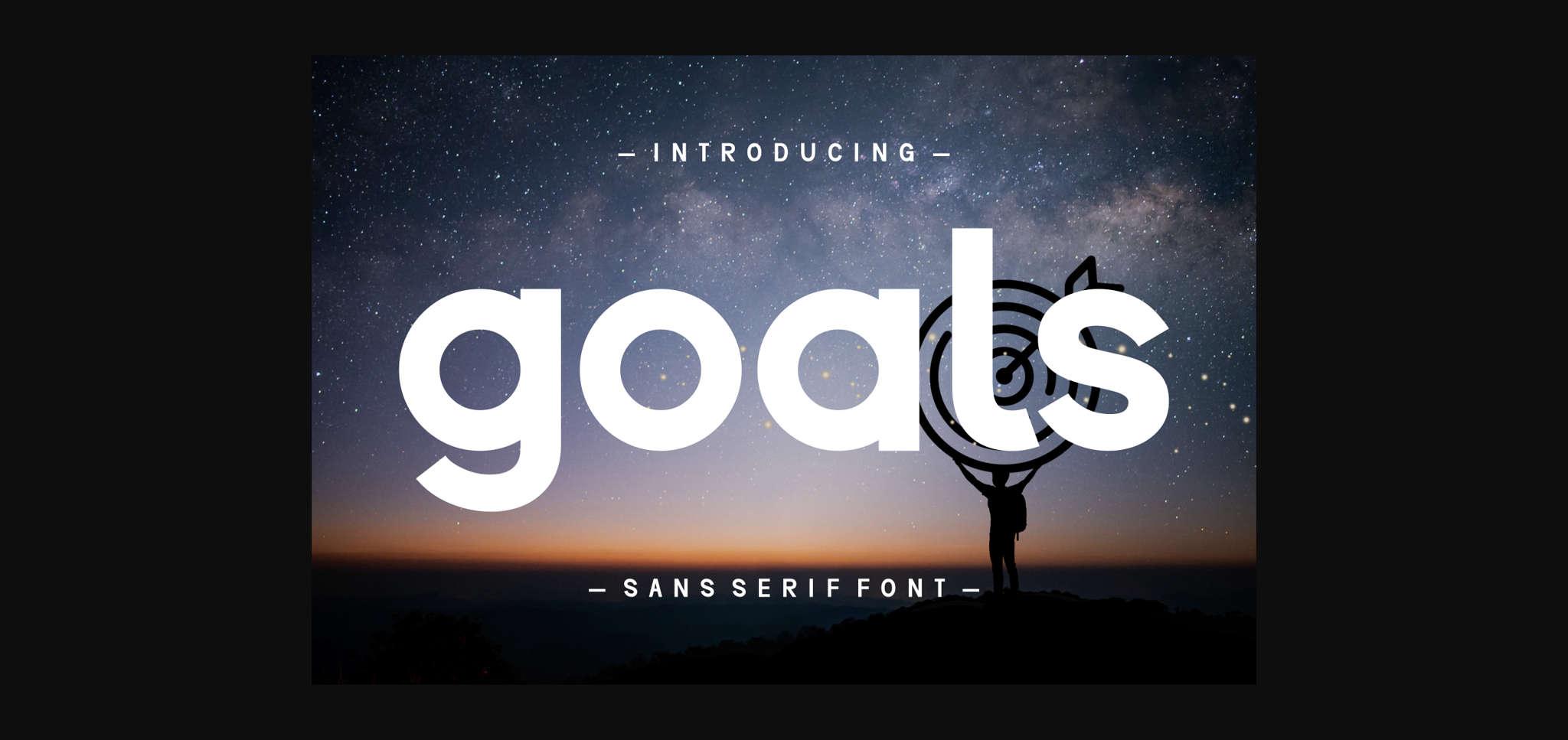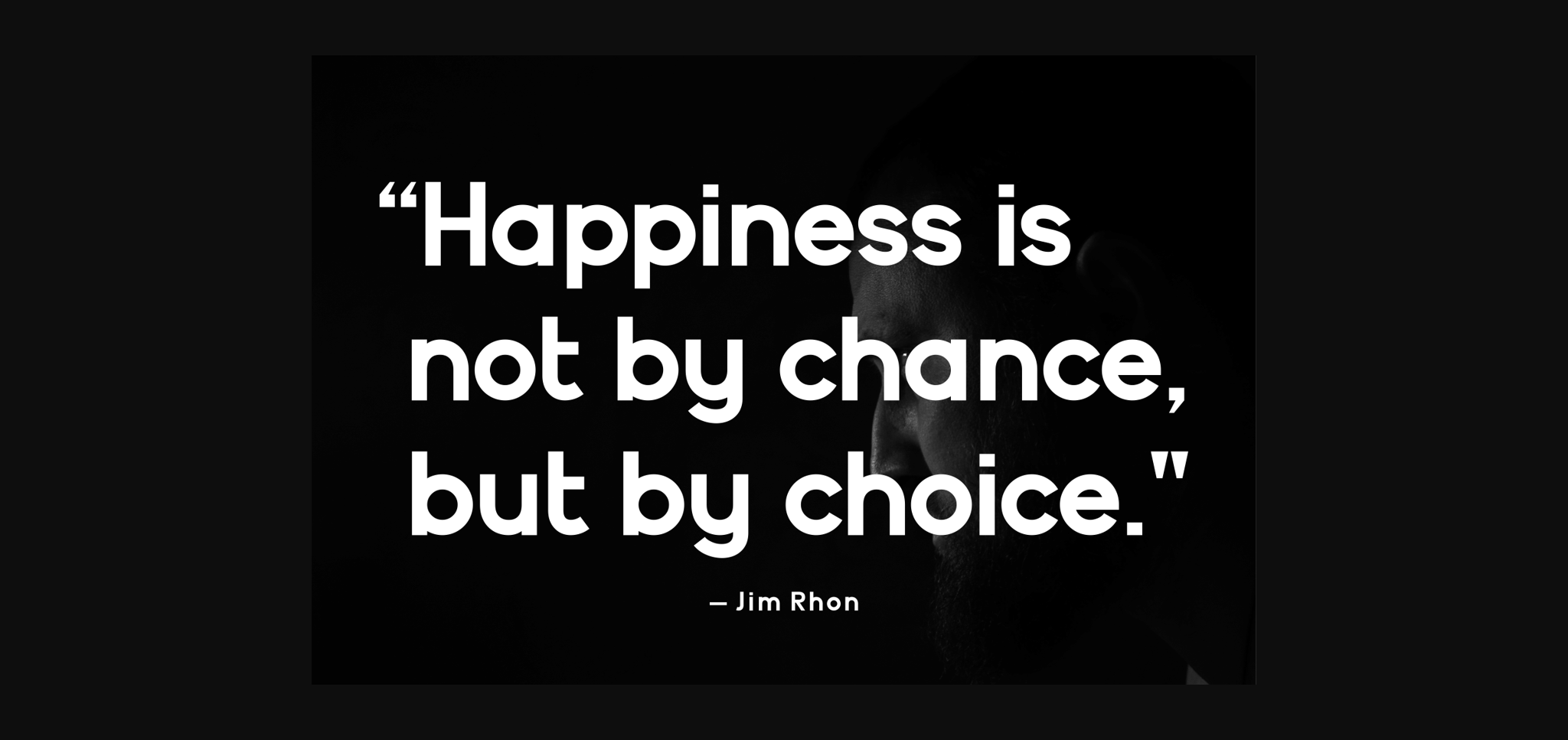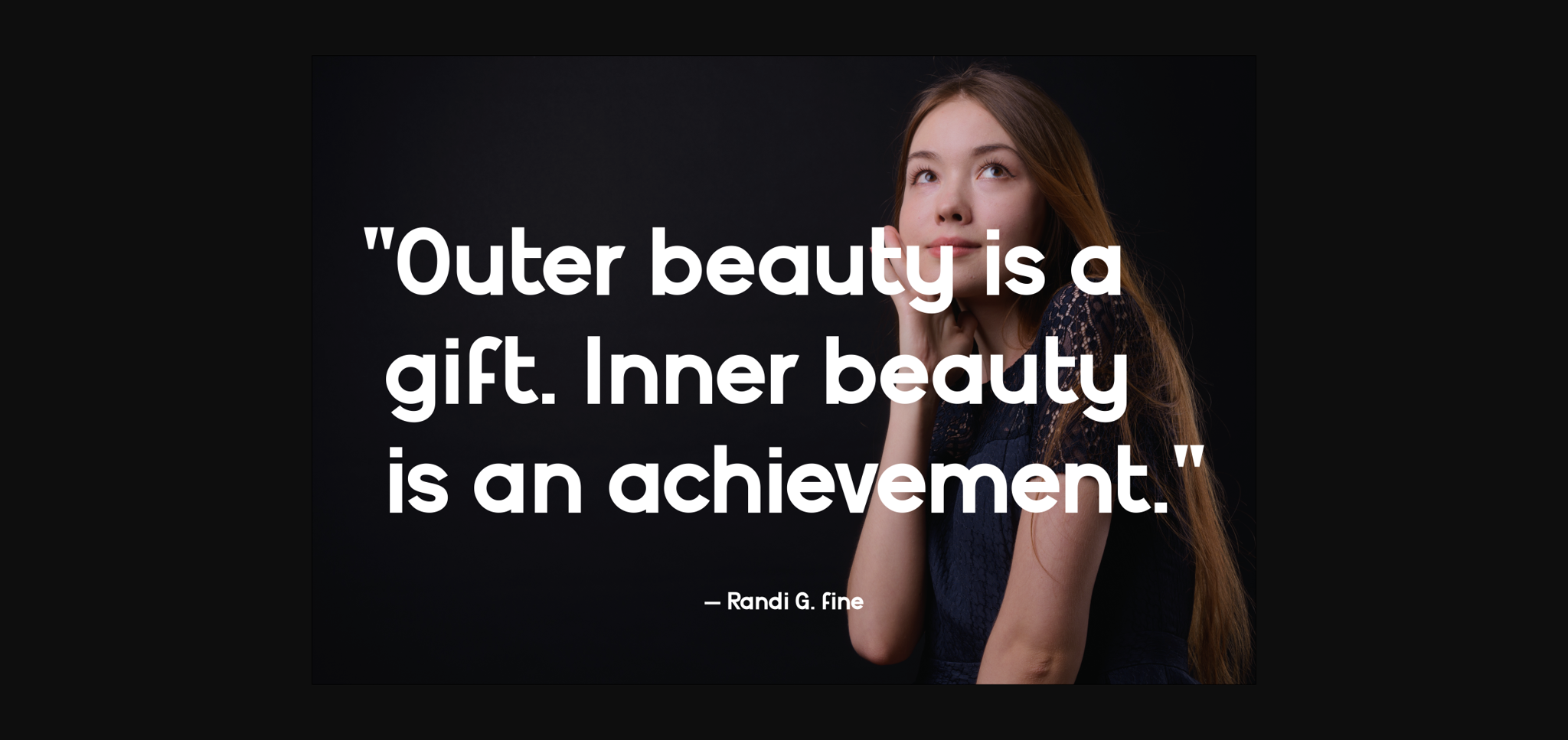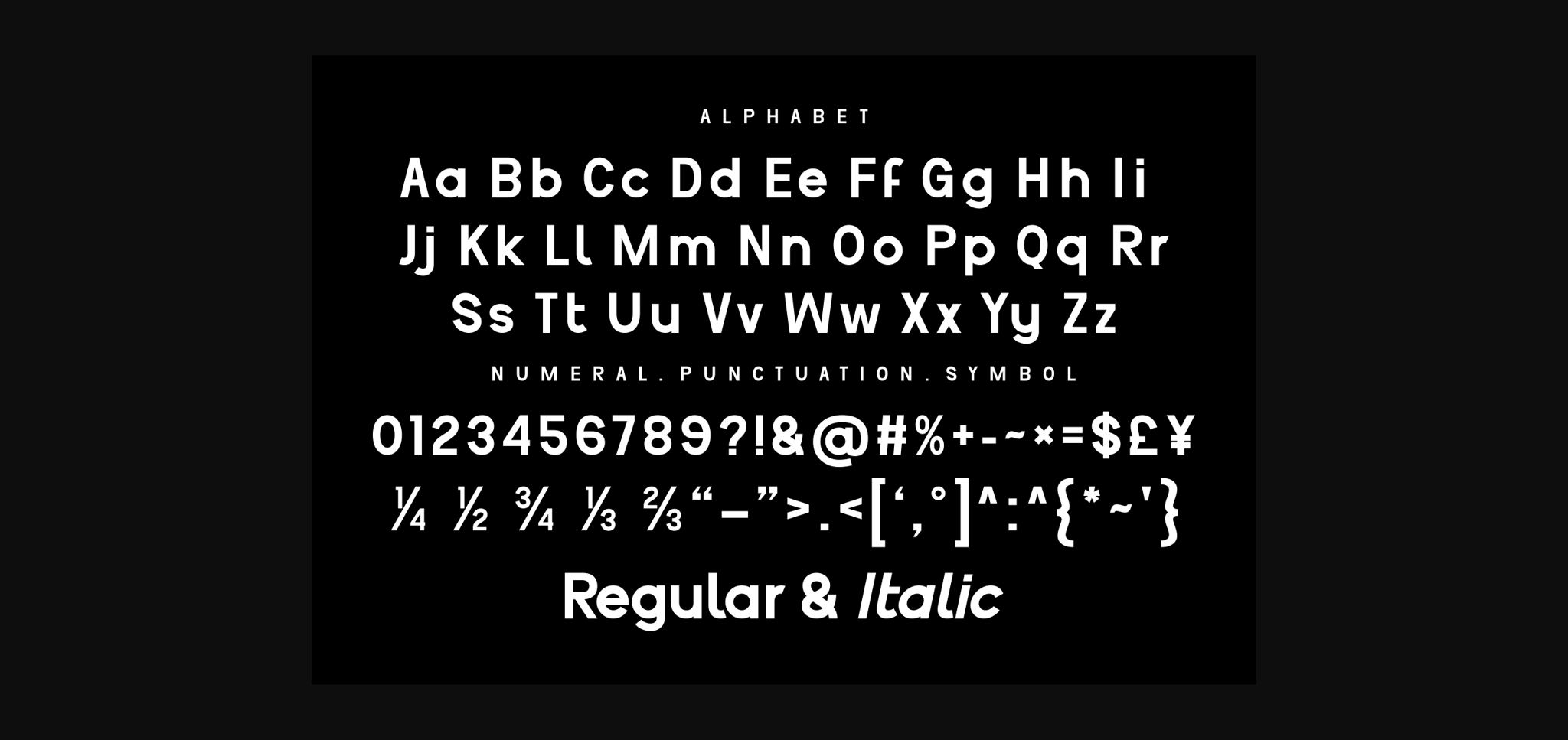
About Goals Font
Goals is a clean and straightforward sans-serif font designed for clarity and simplicity. With its neat and modern appearance, it’s perfect for a variety of uses. Whether you’re creating professional documents, signage, or web content, Goals adds a polished and contemporary touch to your text. Easy on the eyes and versatile, this font helps you achieve your design goals with clarity and style.